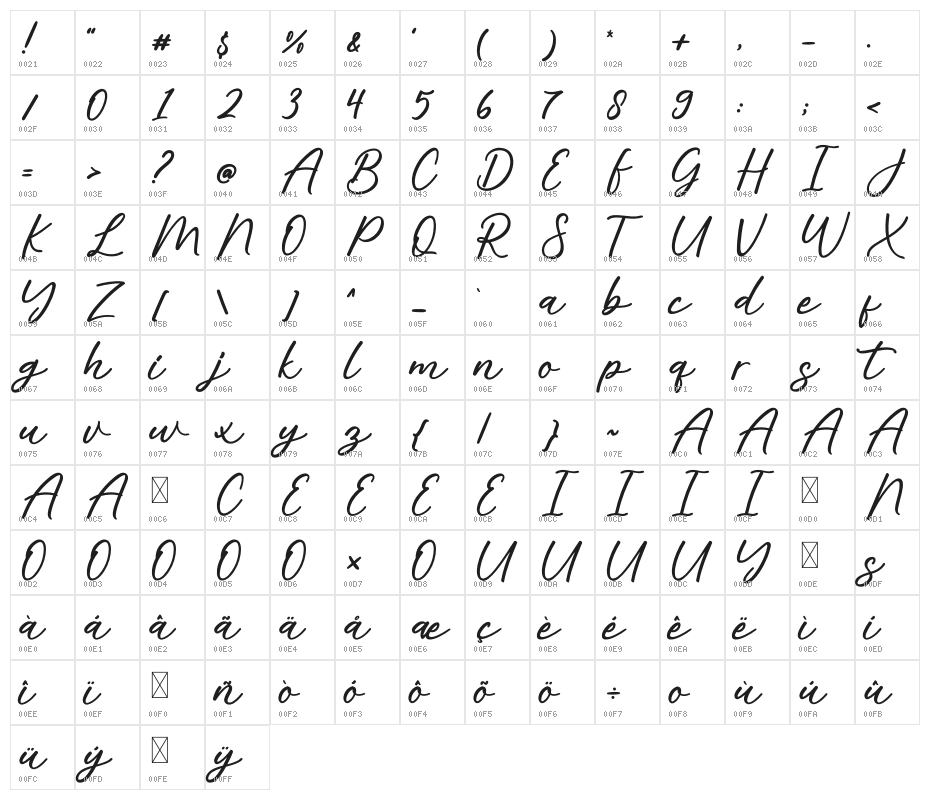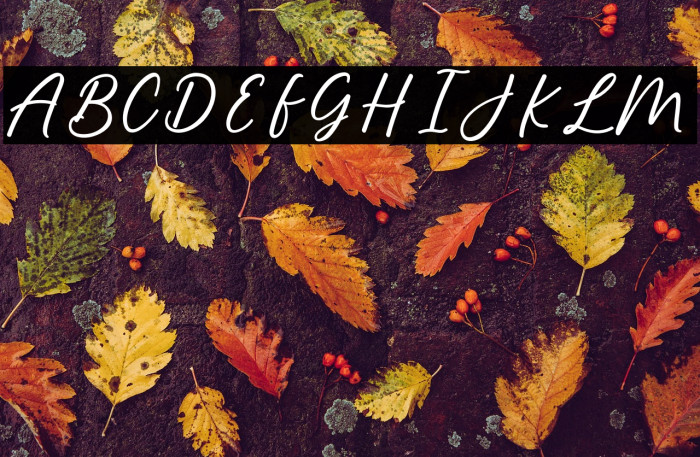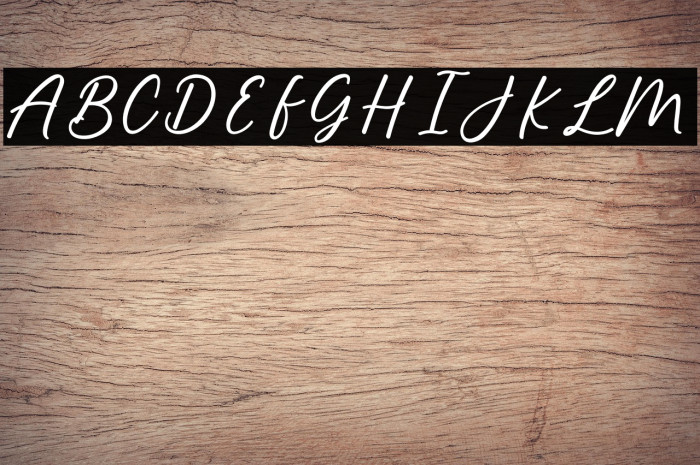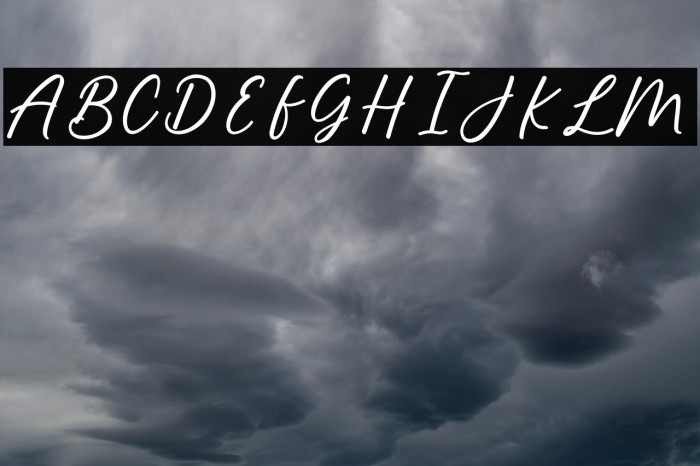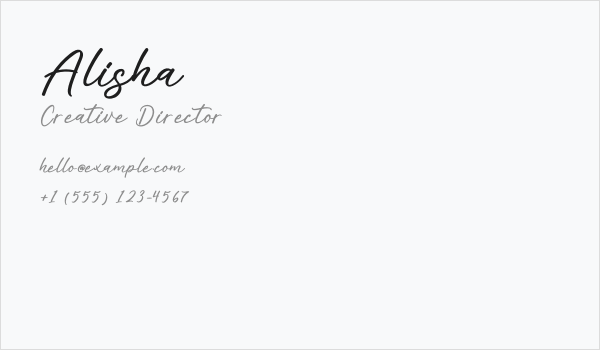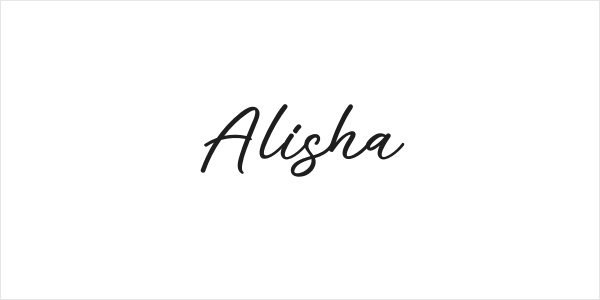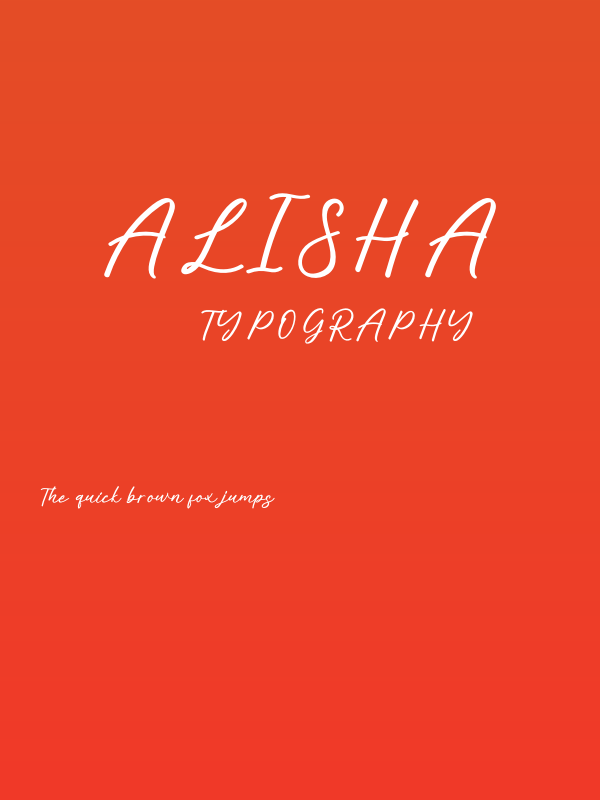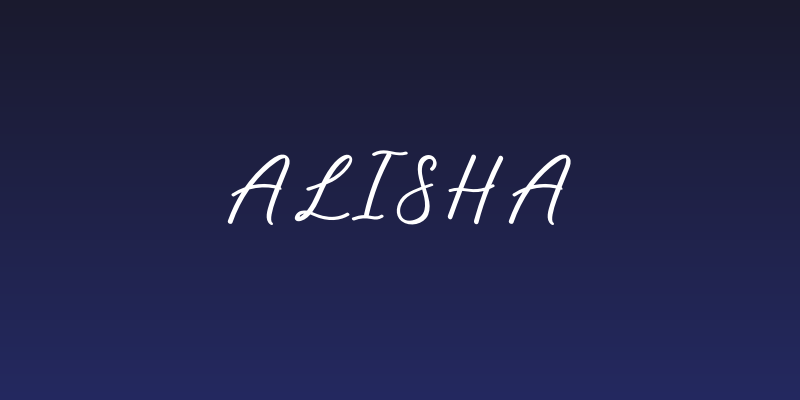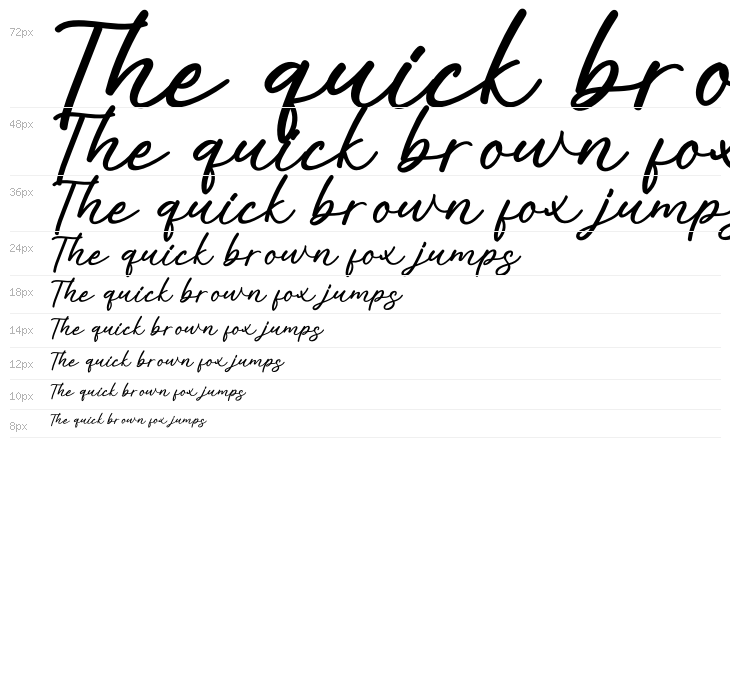
Alisha Font
Alisha Description
This font features a flowing, cursive style with a handwritten appearance. The uppercase letters are elegantly connected, while the lowercase letters maintain a consistent flow, enhancing readability. The numerals are distinct yet harmonious with the overall script style. Special characters are designed to complement the alphabet, maintaining the font's cohesive look. The strokes are smooth and slightly varied in thickness, adding a touch of sophistication and charm. This font is ideal for projects that require a personal, artistic touch, such as invitations, greeting cards, and branding materials.
| Proposed Projects | Ideal for invitations, greeting cards, branding, and artistic projects. |